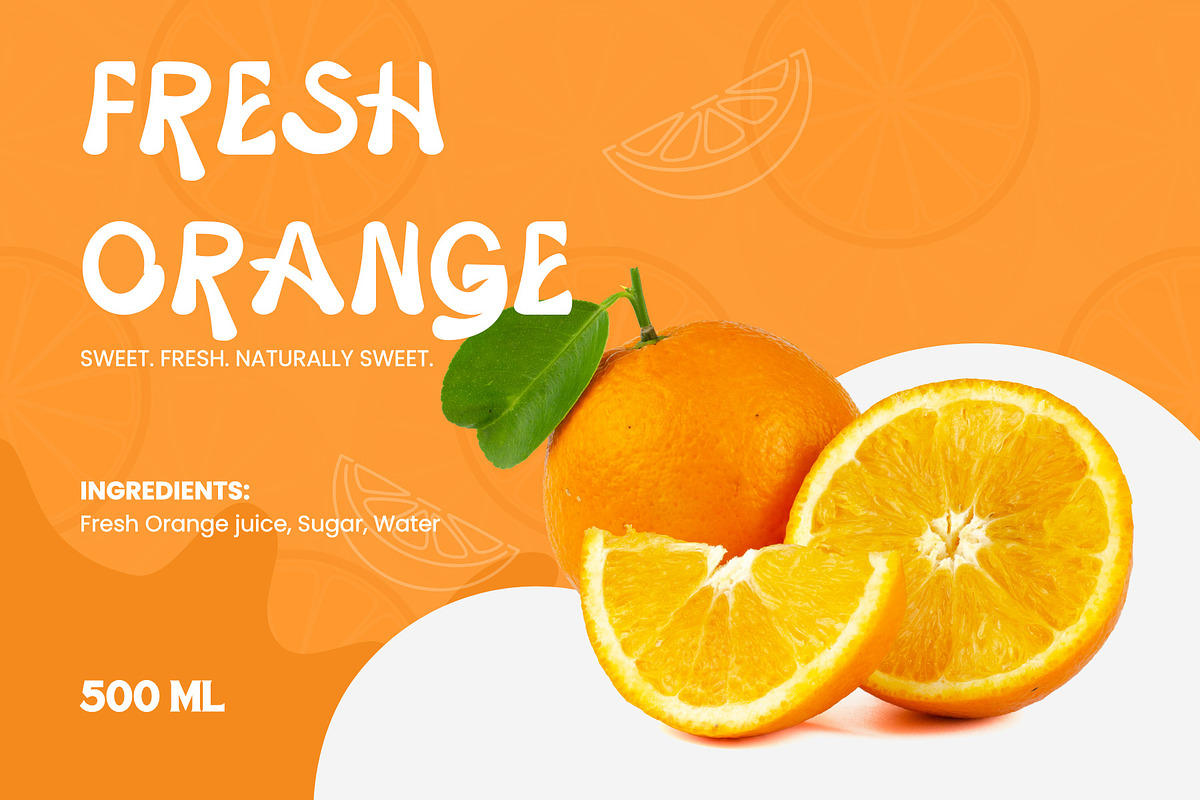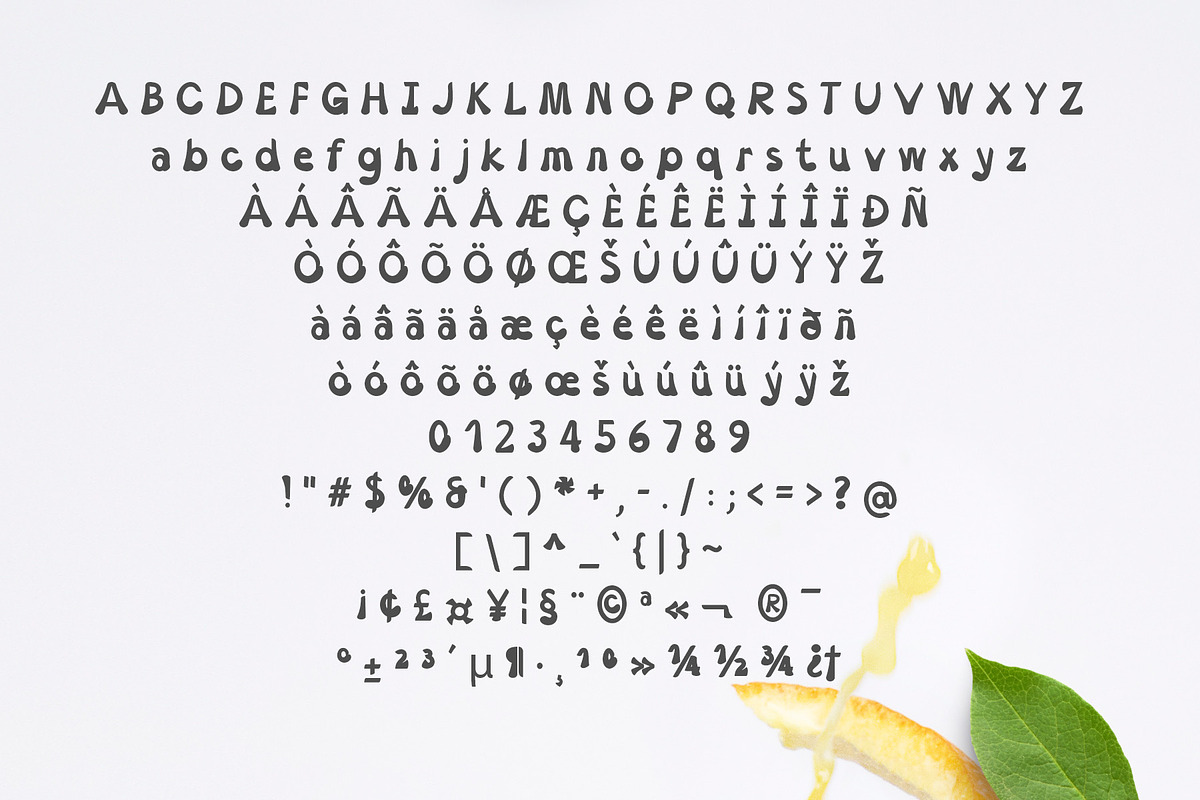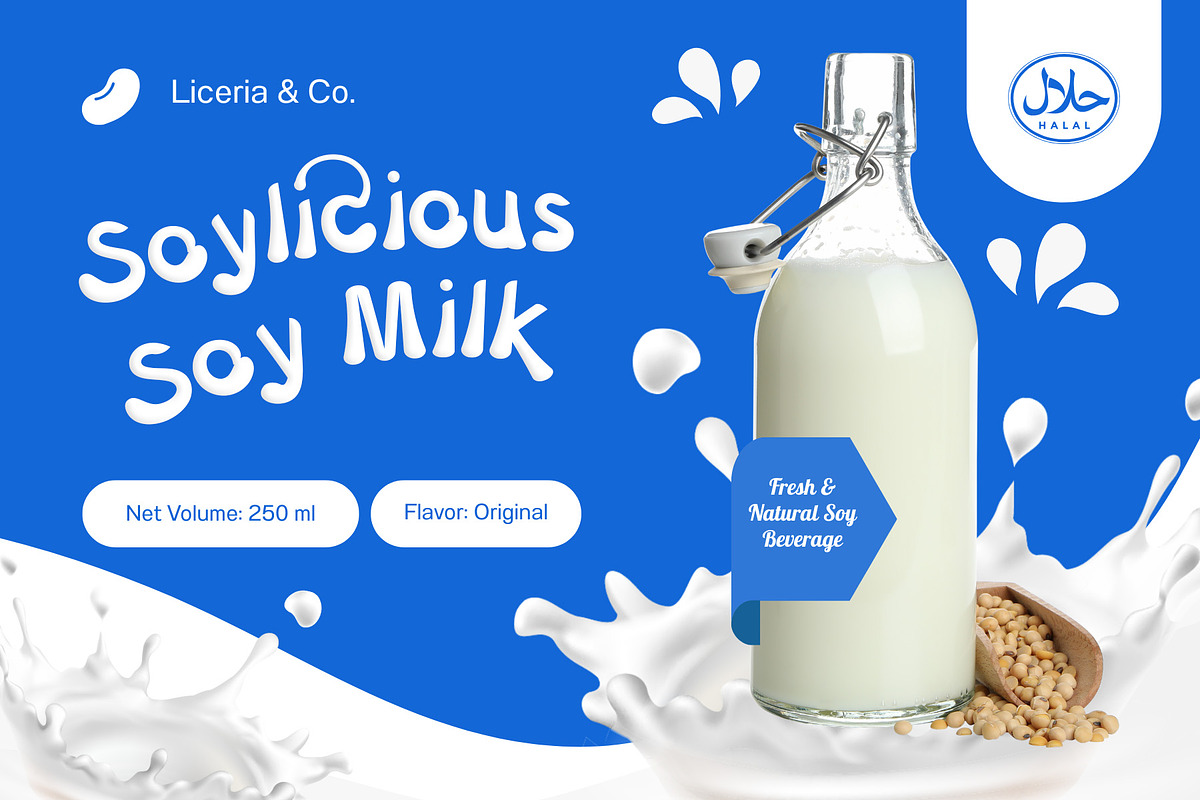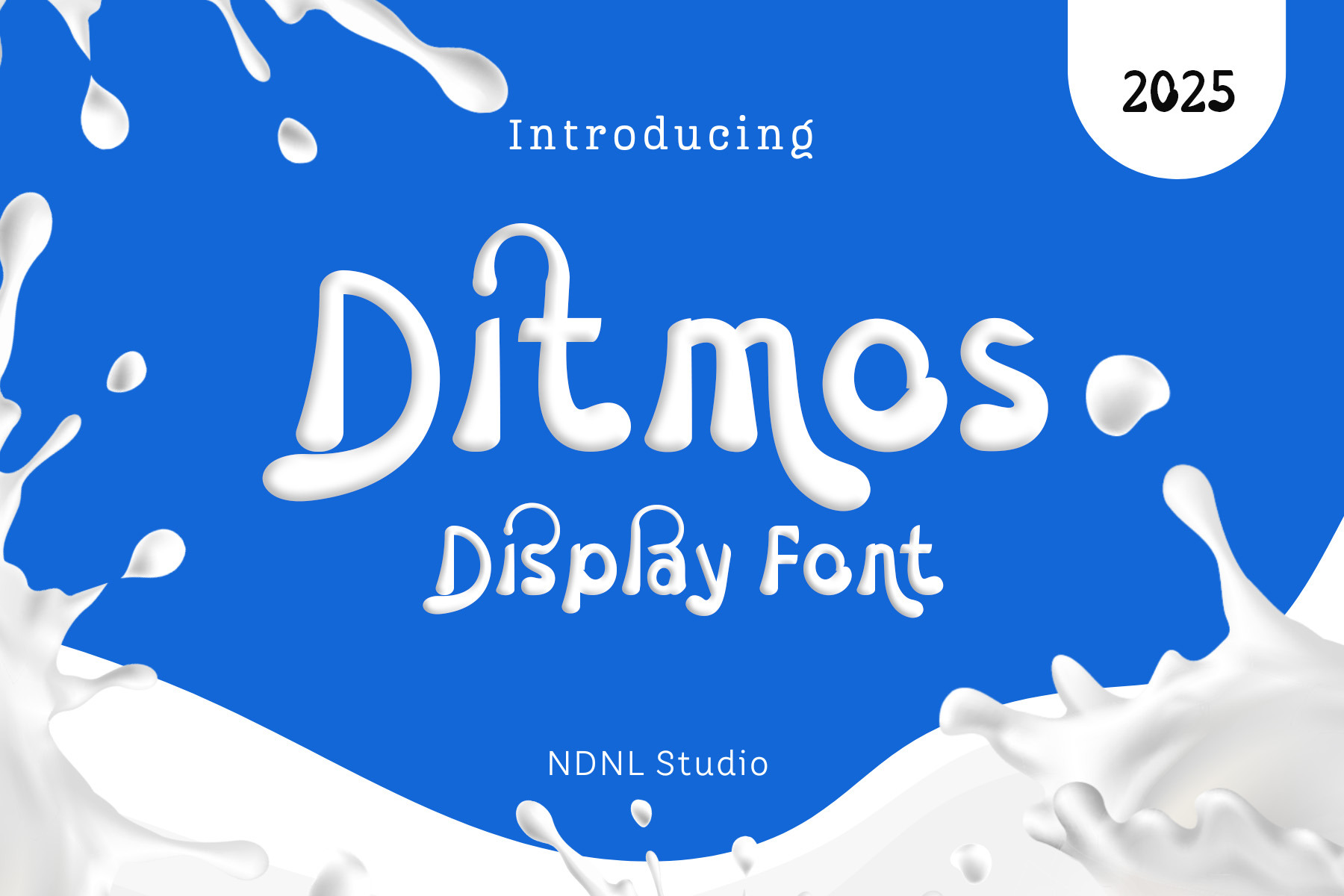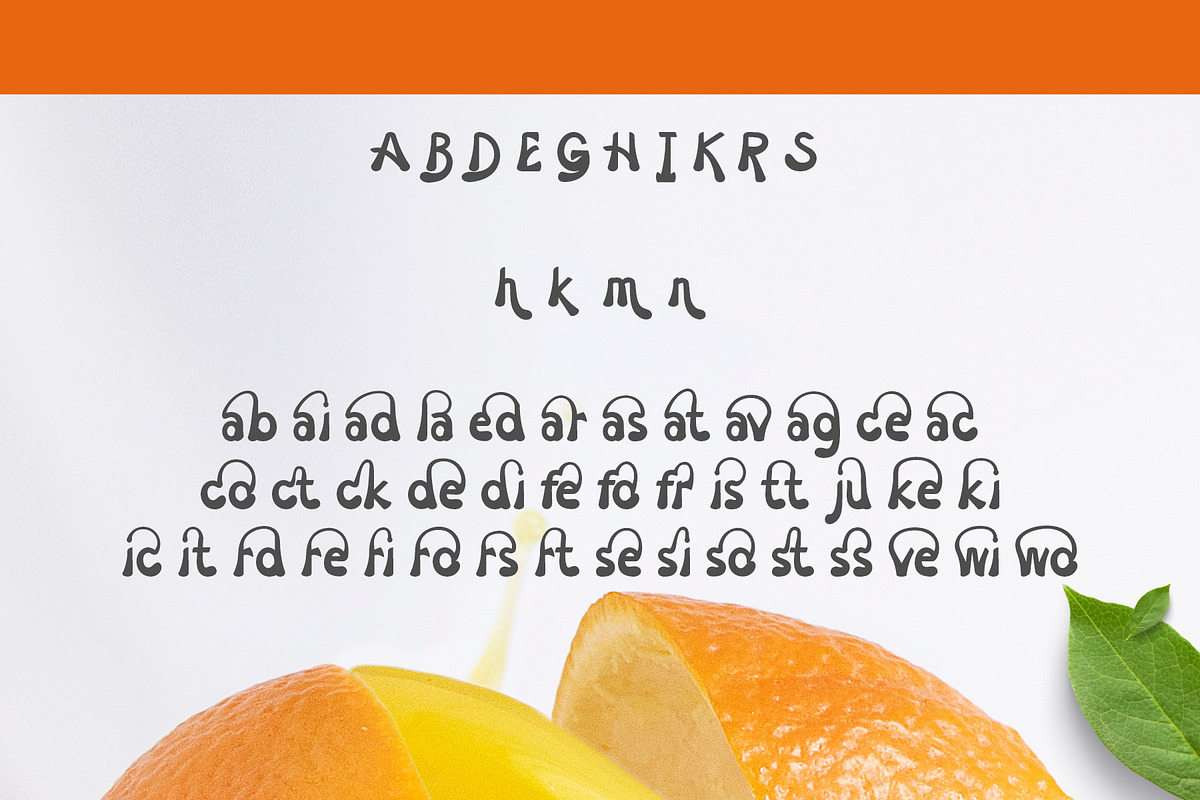
Ditmos – Display Font
Introducing Ditmos!
Meet Ditmos – a bold and playful display font that looks as smooth as milk! Its rounded, flowing shapes bring a fresh and creamy vibe to any design. Ditmos is perfect for projects that need to grab attention — from product packaging and posters to social media graphics and fun branding.
This font allows you to use decorative glyphs even in applications that do not support OpenType features.
This font includes special decorative glyphs that can be accessed through simple typing shortcuts.
Example:
- Axx→ Decorative A (if available)
- aX → Decorative a (if available)
And also:
- AxX→ Decorative A2 (if available)
- aXX→ Decorative a2 (if available)
To separate ligatures:
- Insert the shortcut xXx between two characters.
- Example: ab → axXxb → a b
- Character set A-Z